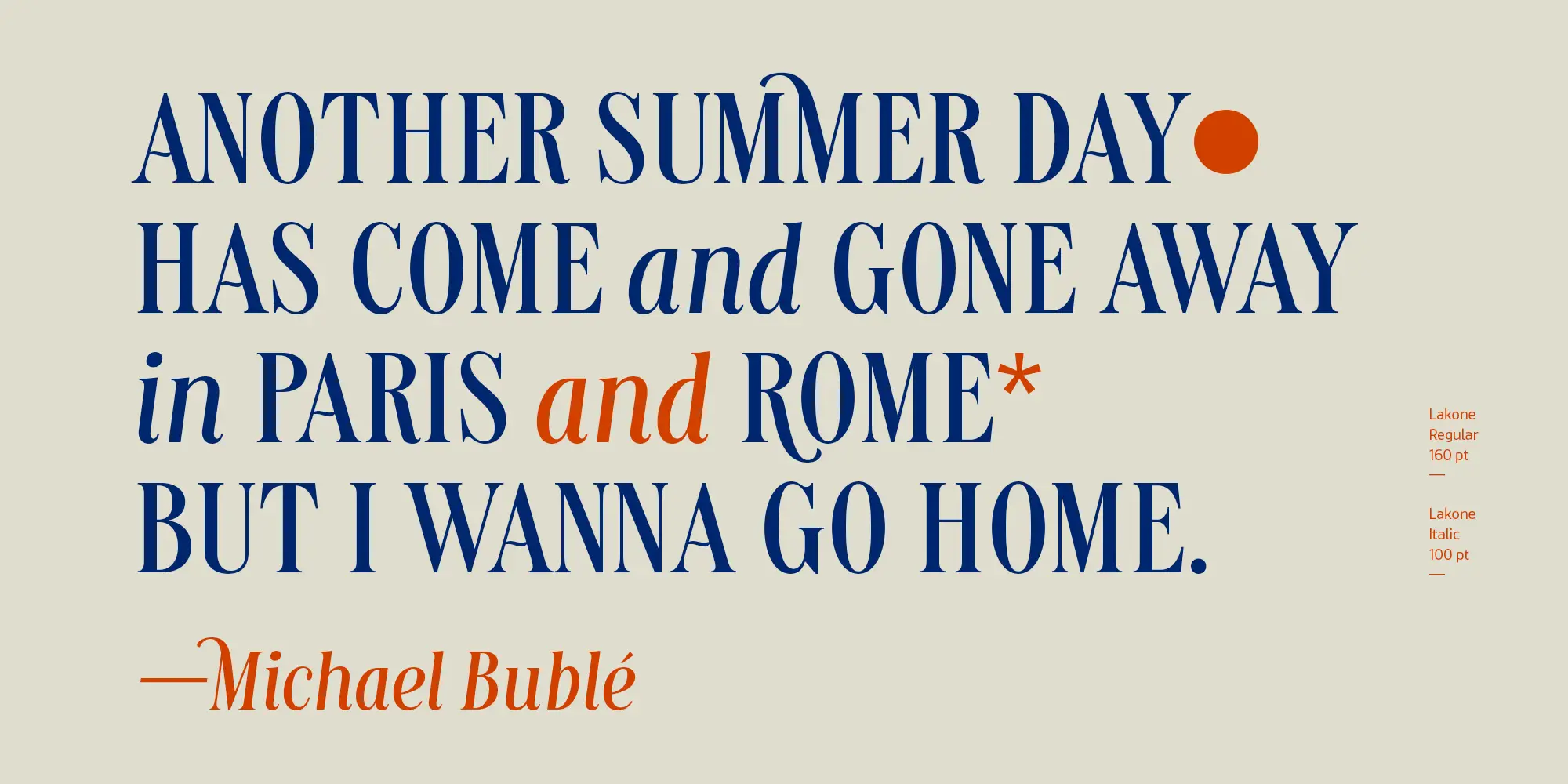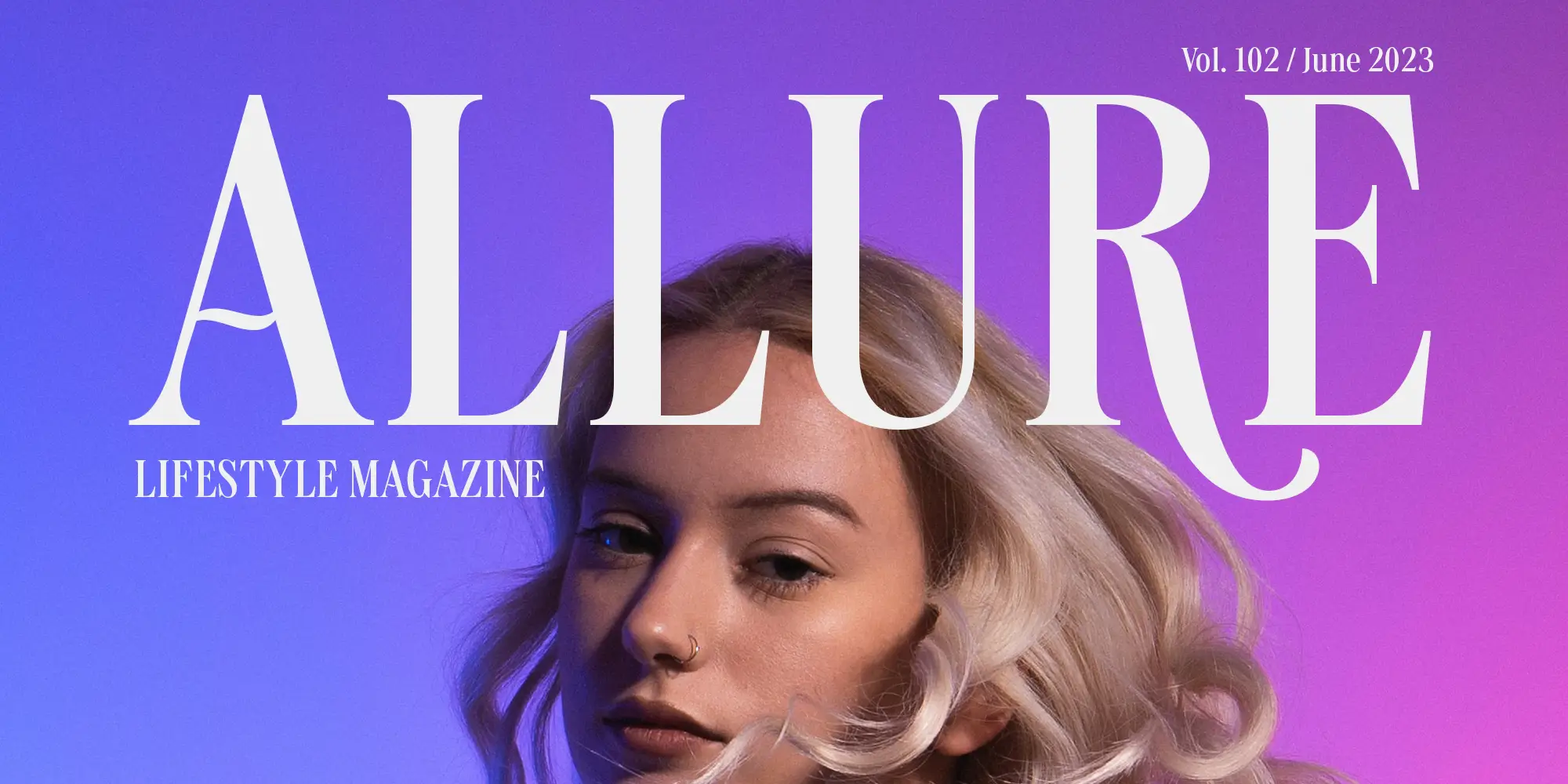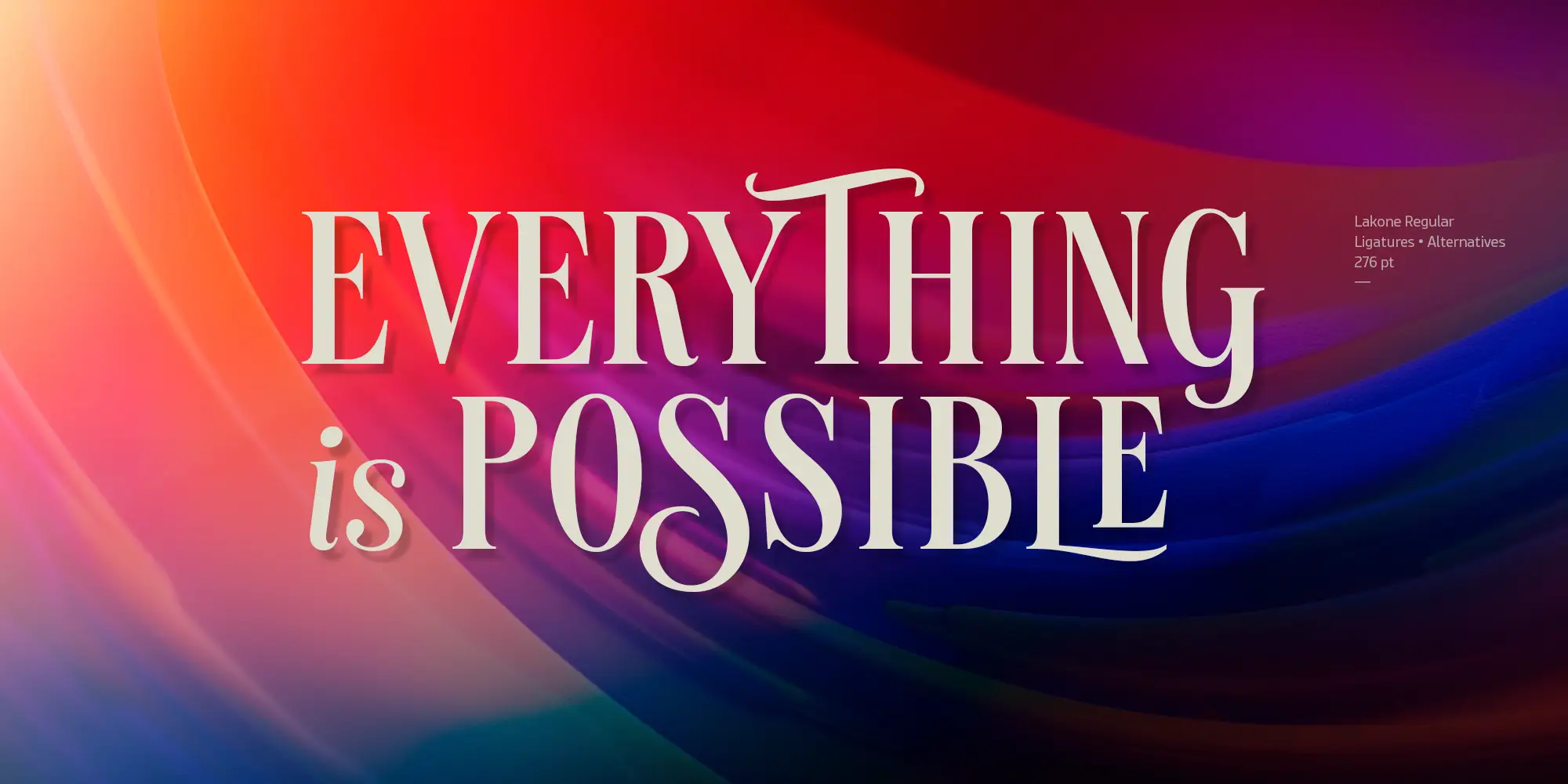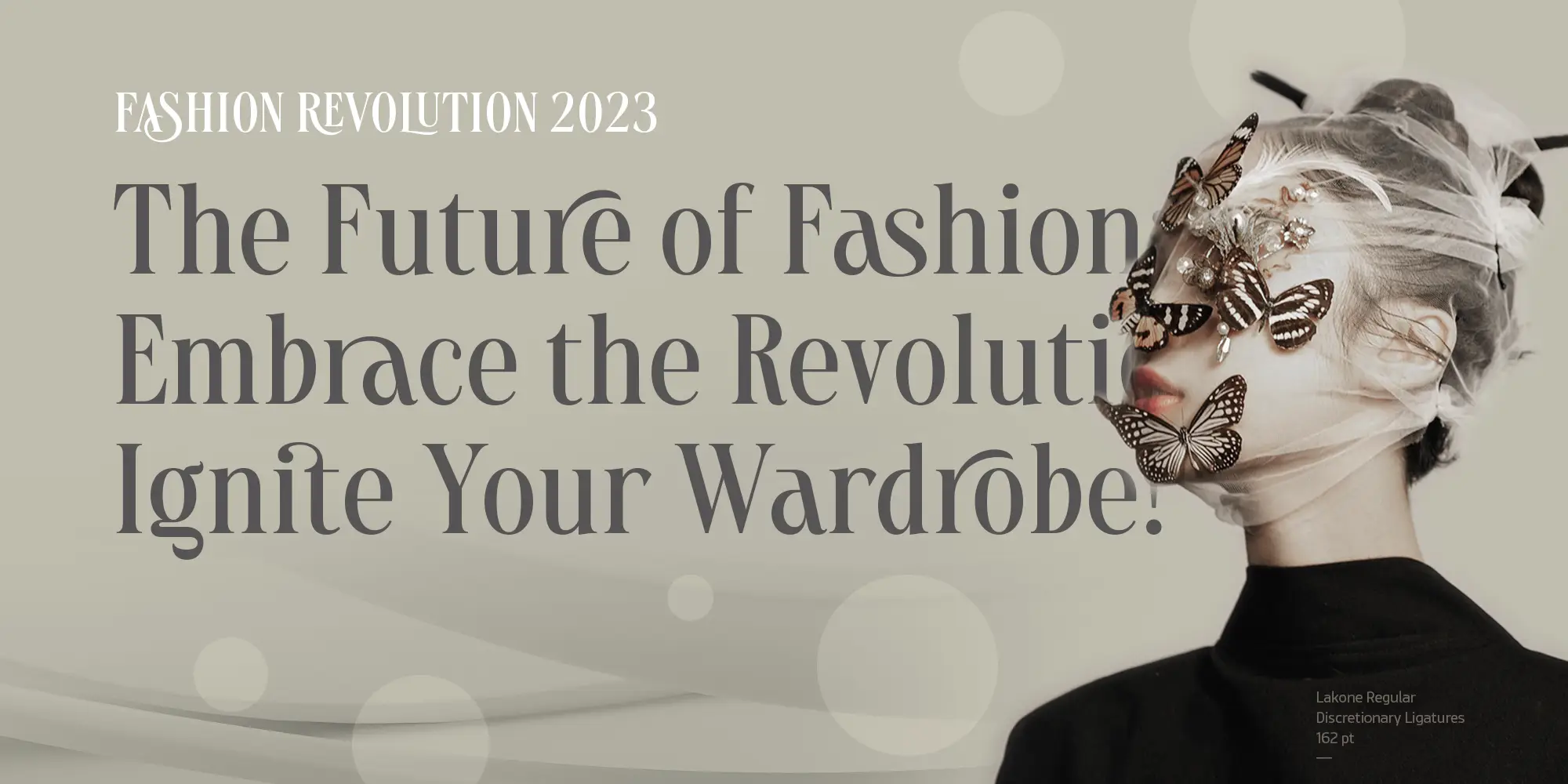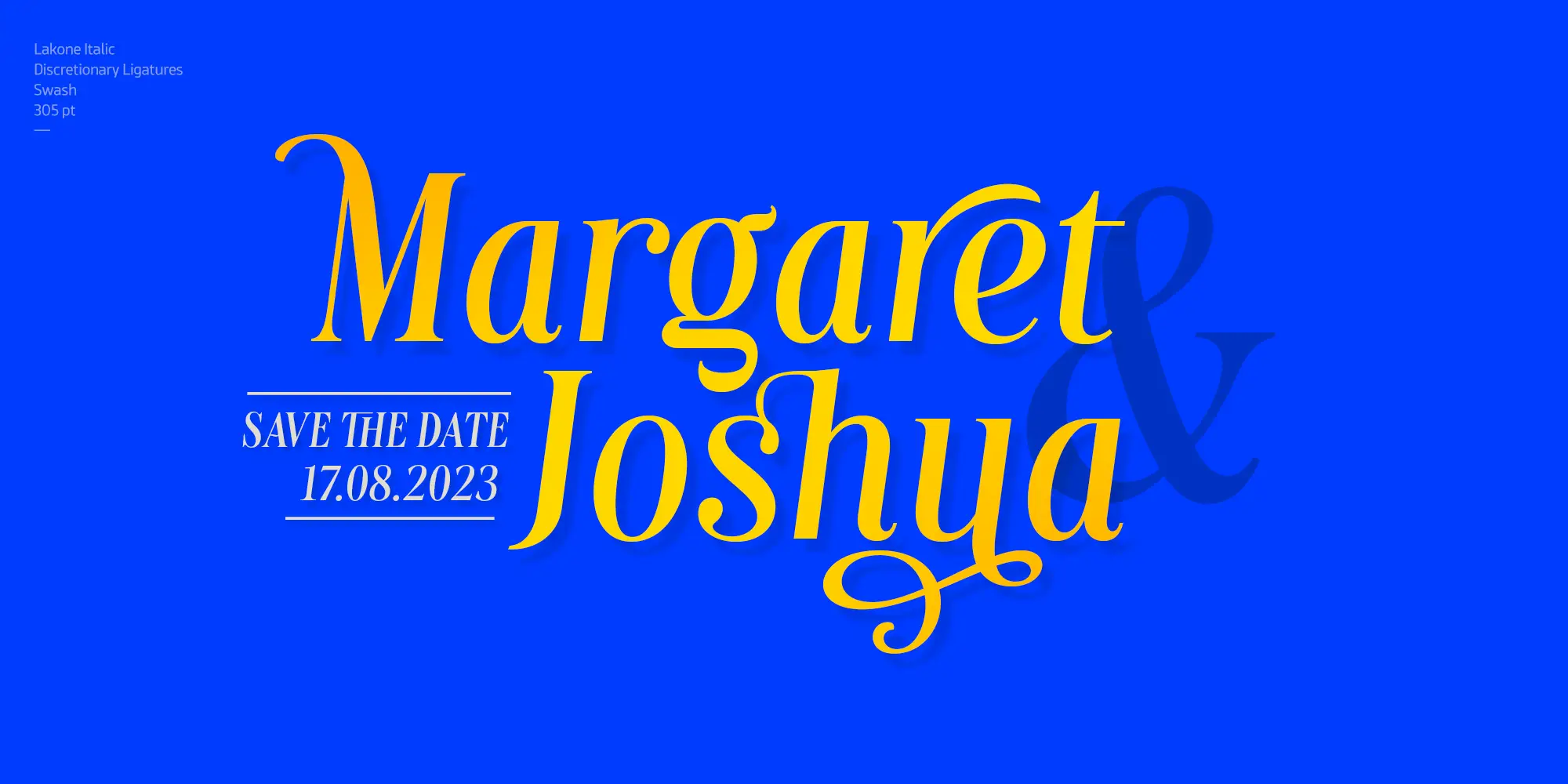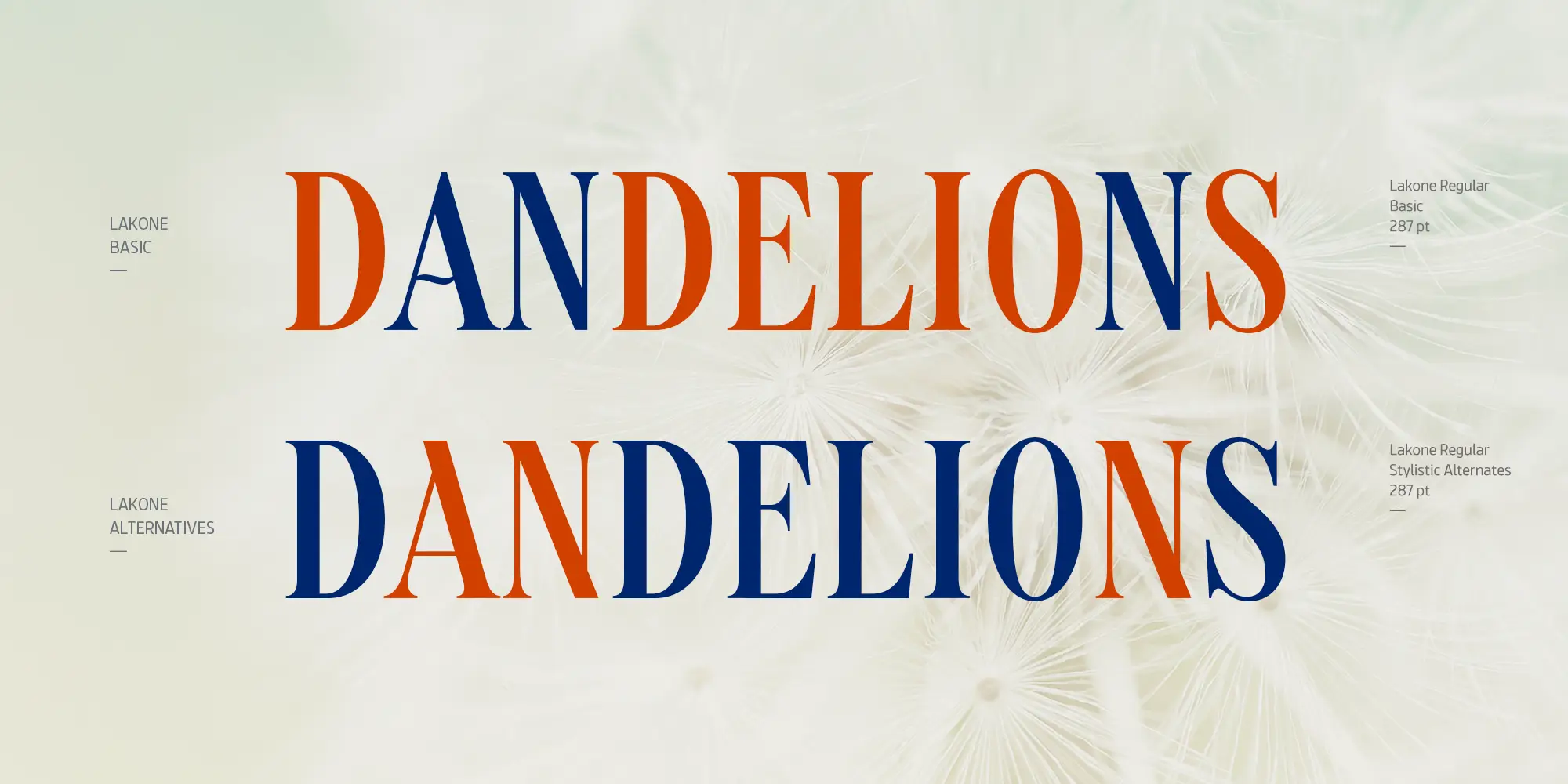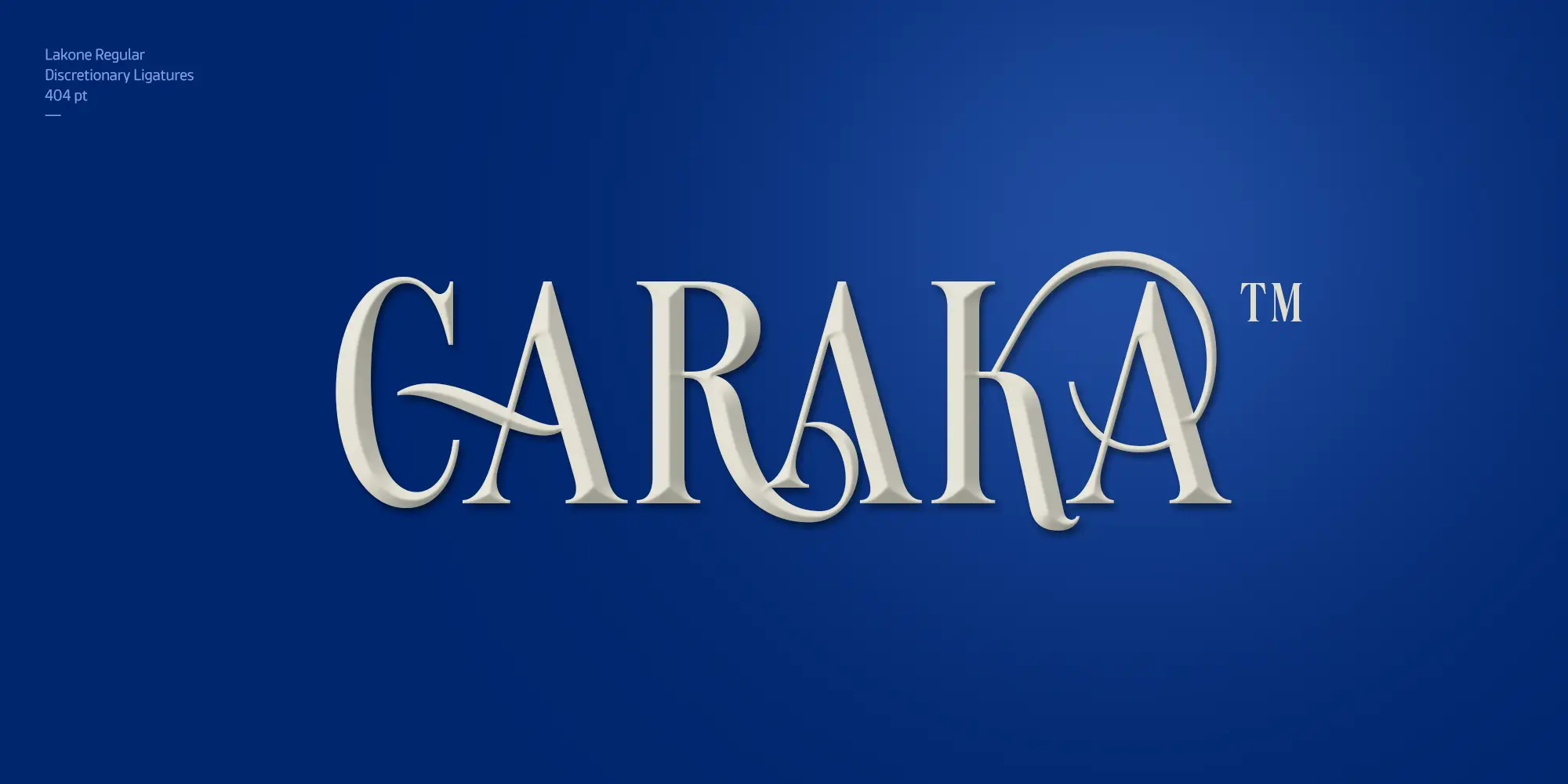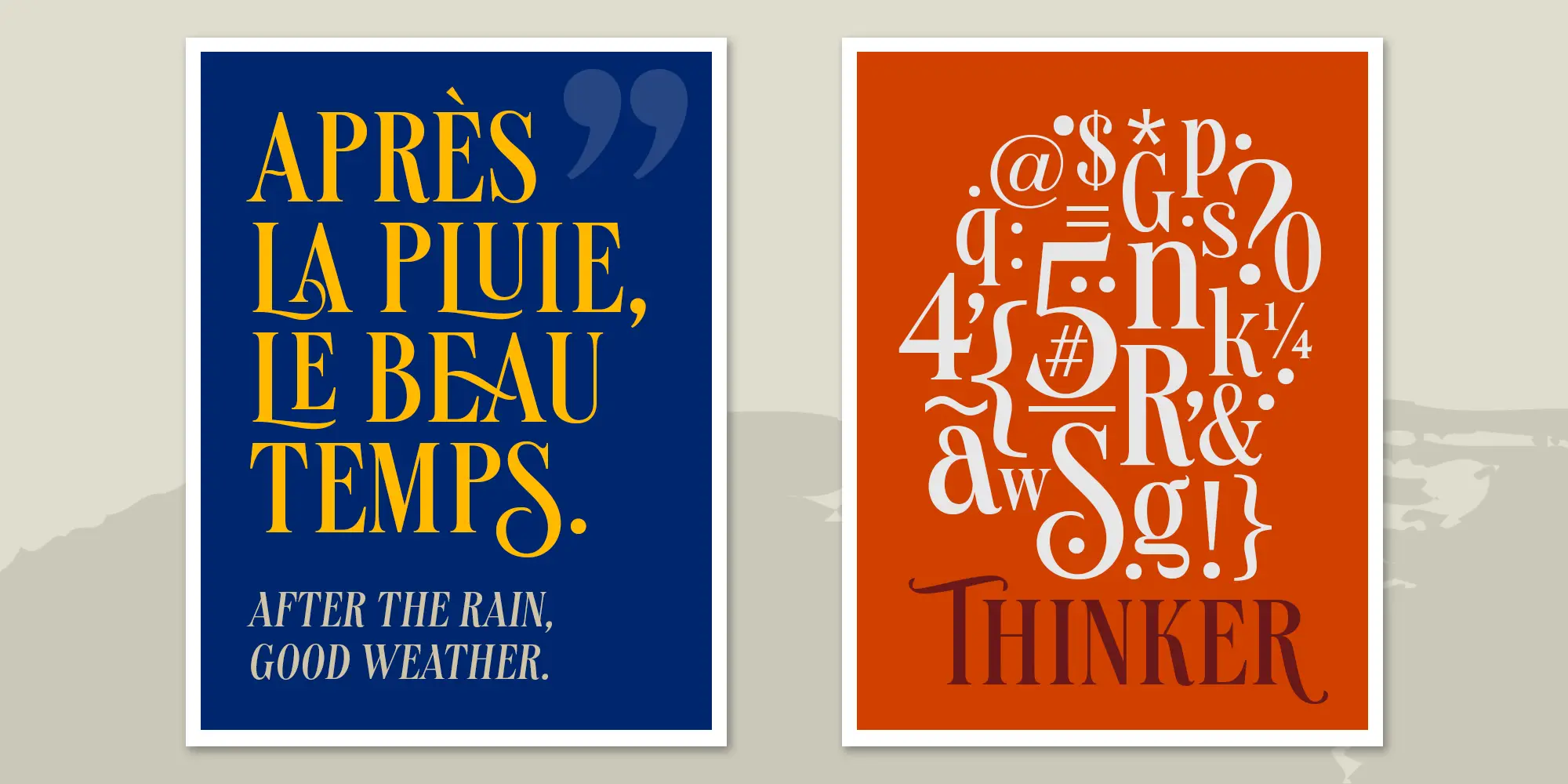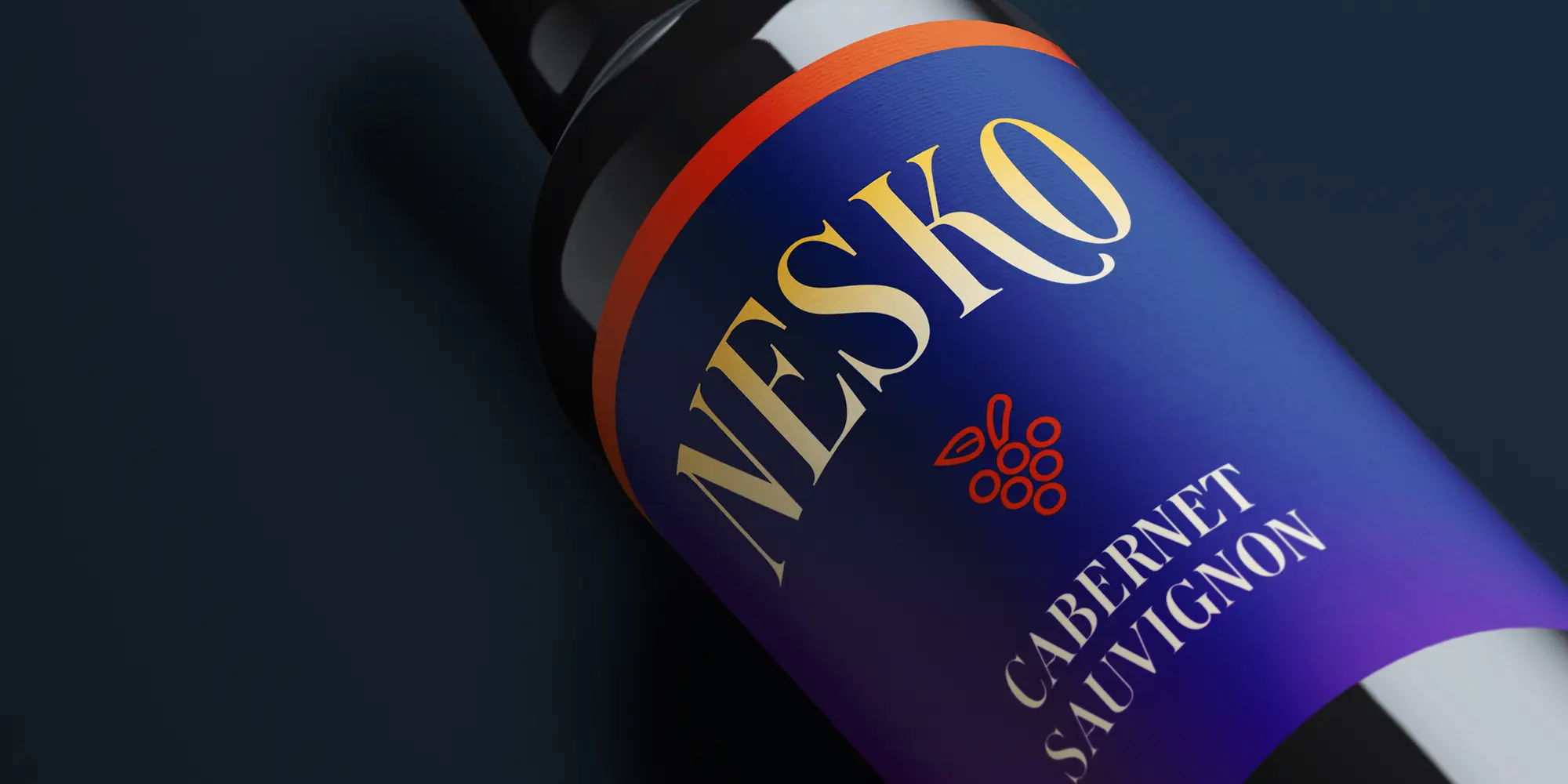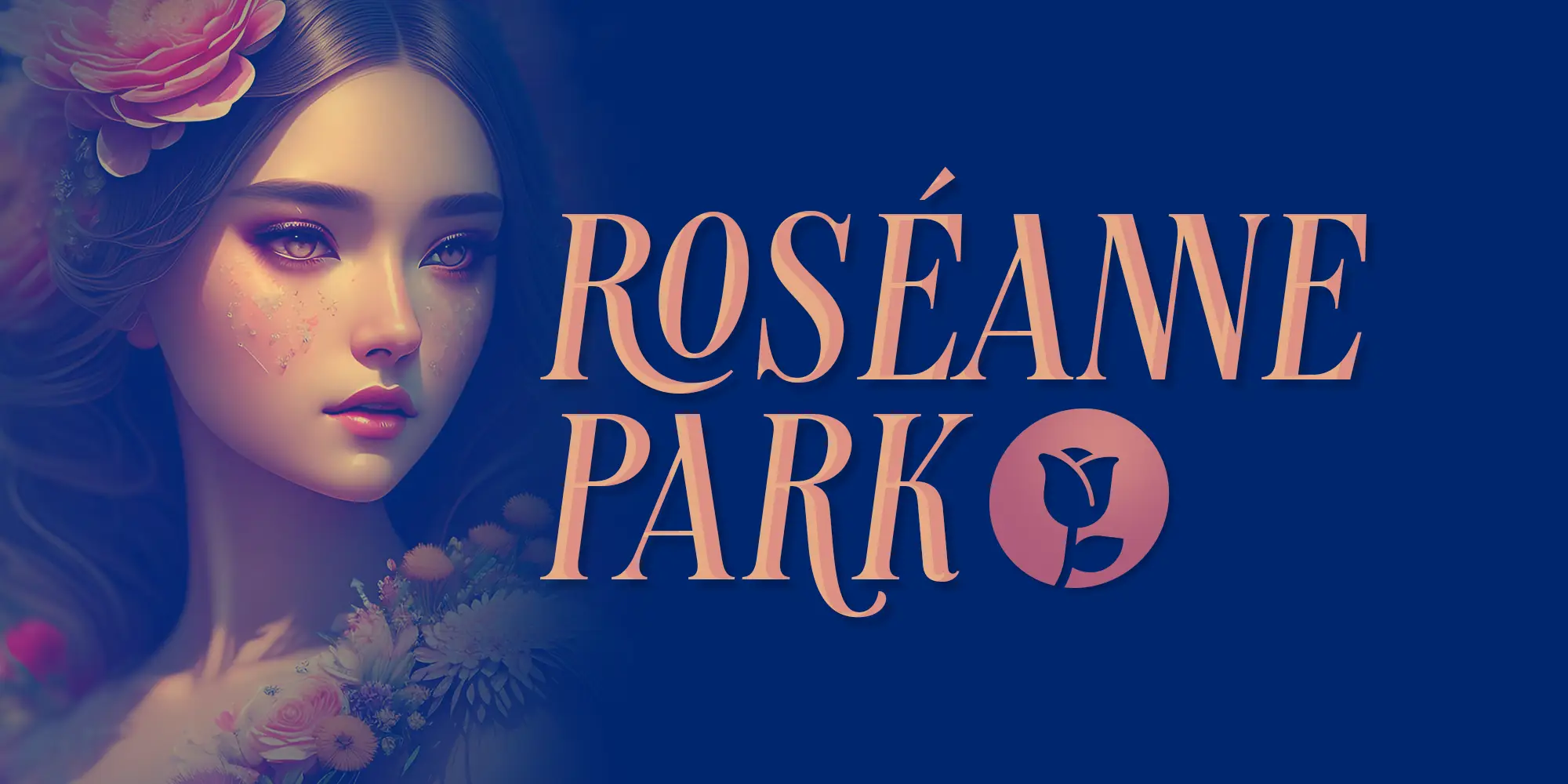
Introducing Lakone, the modern serif font that brings a touch of sophistication to your designs. With its narrow character and sleek aesthetics, Lakone is the perfect choice for titles and headlines that demand attention.
But Lakone offers more than just good looks. With its extensive set of Opentype features, including dozens of ligatures, swashes, and alternatives, this font empowers you to unleash your creativity and elevate your typography game. These features provide you with endless possibilities to customize your designs and add that extra touch of elegance.
Stand out from the crowd with Lakone. Whether you’re designing a magazine cover, a logo, or a website, this font will captivate your audience and leave a lasting impression. Don’t settle for ordinary typography when you can have the allure and versatility of Lakone. Get ready to elevate your design projects and make a bold statement with this modern serif font.
Name: Lakone
Style: Serif
Released: 2023
Designer: Arwan Sutanto
OT Features: Ligatures, Stylistic Set, Alternates